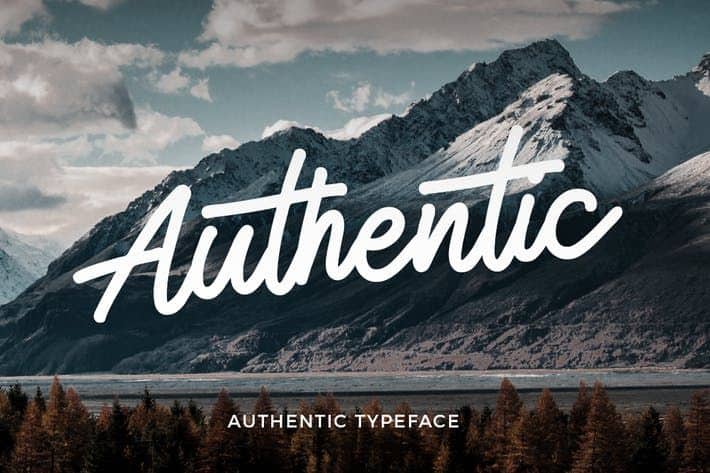
authentic
Authentic Font offers a unique design in TTF, OTF, and WOFF formats. Ideal for branding, print, and digital projects with a modern touch.
Explore the Unique Charm of Authentic Font
Authentic Font, created by renowned designer John Smith in 2022, combines modern aesthetics with classic typography. Its unique characteristics make it perfect for branding, web design, and print materials, giving any project a fresh and contemporary look.
Key Features and Formats of Authentic Font
The Creative Journey Behind Authentic Font
Inspired by the need for a distinctive typeface that balances personality and functionality, John Smith meticulously crafted Authentic Font with attention to detail that highlights its uniqueness. This font stands out with its elegant curves and balanced proportions, making it suitable for both casual and formal projects.
Ideal Uses for Authentic Font
Authentic Font shines in diverse applications, from modern branding and artistic posters to personal stationery and digital content. Its adaptability ensures it fits effortlessly into any creative endeavor.